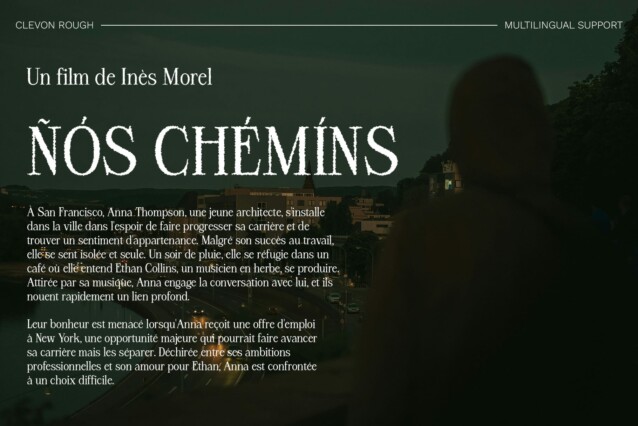
Clevon Rough Font
Clevon Rough Font is a modern serif font that seamlessly blends timeless elegance with a distinctive, rugged touch. Its design incorporates classic serif elements with a rough effect, resulting in a font that combines sophistication with bold character. The serif details enhance the traditional elegance of the font, while the rough texture adds a layer of unique visual interest.